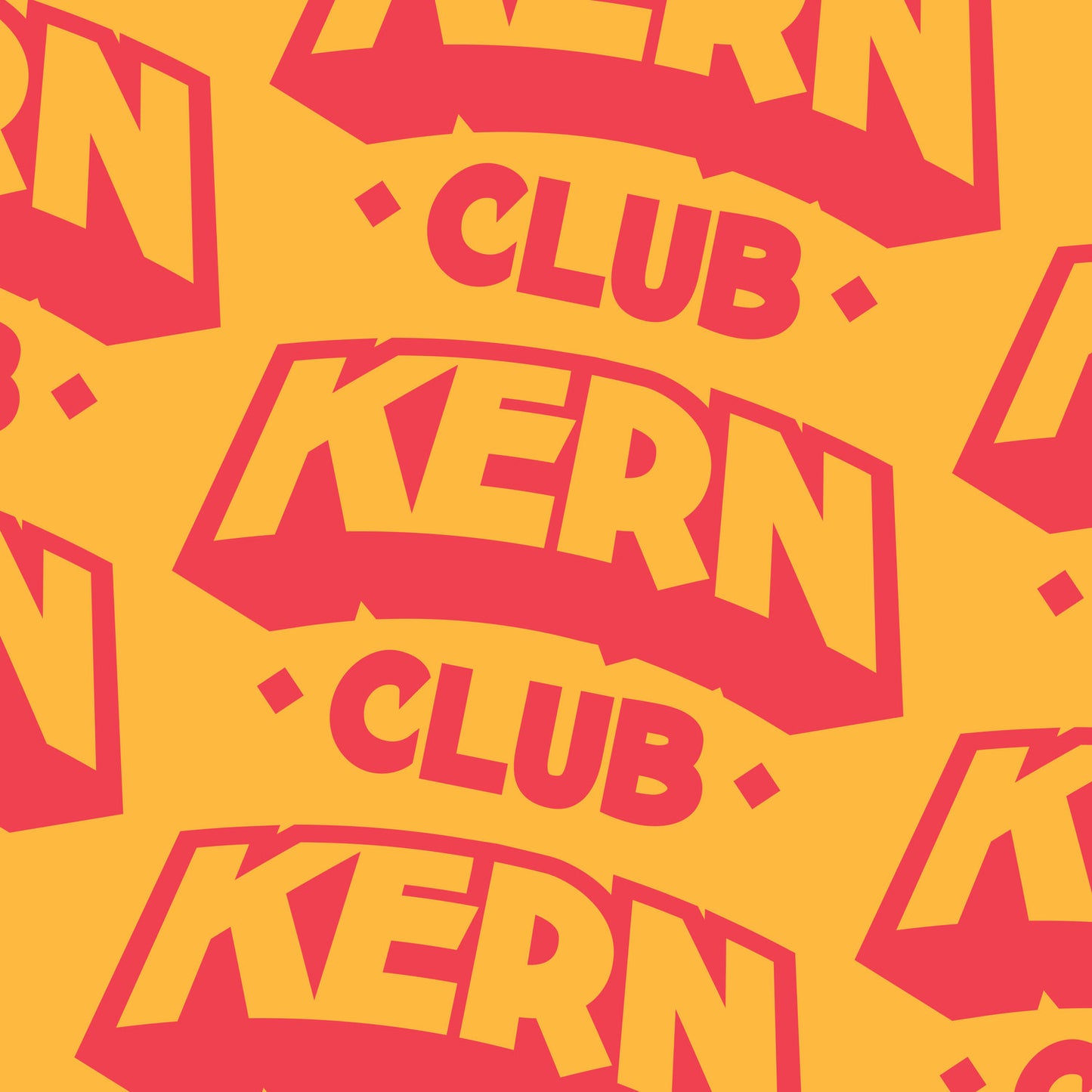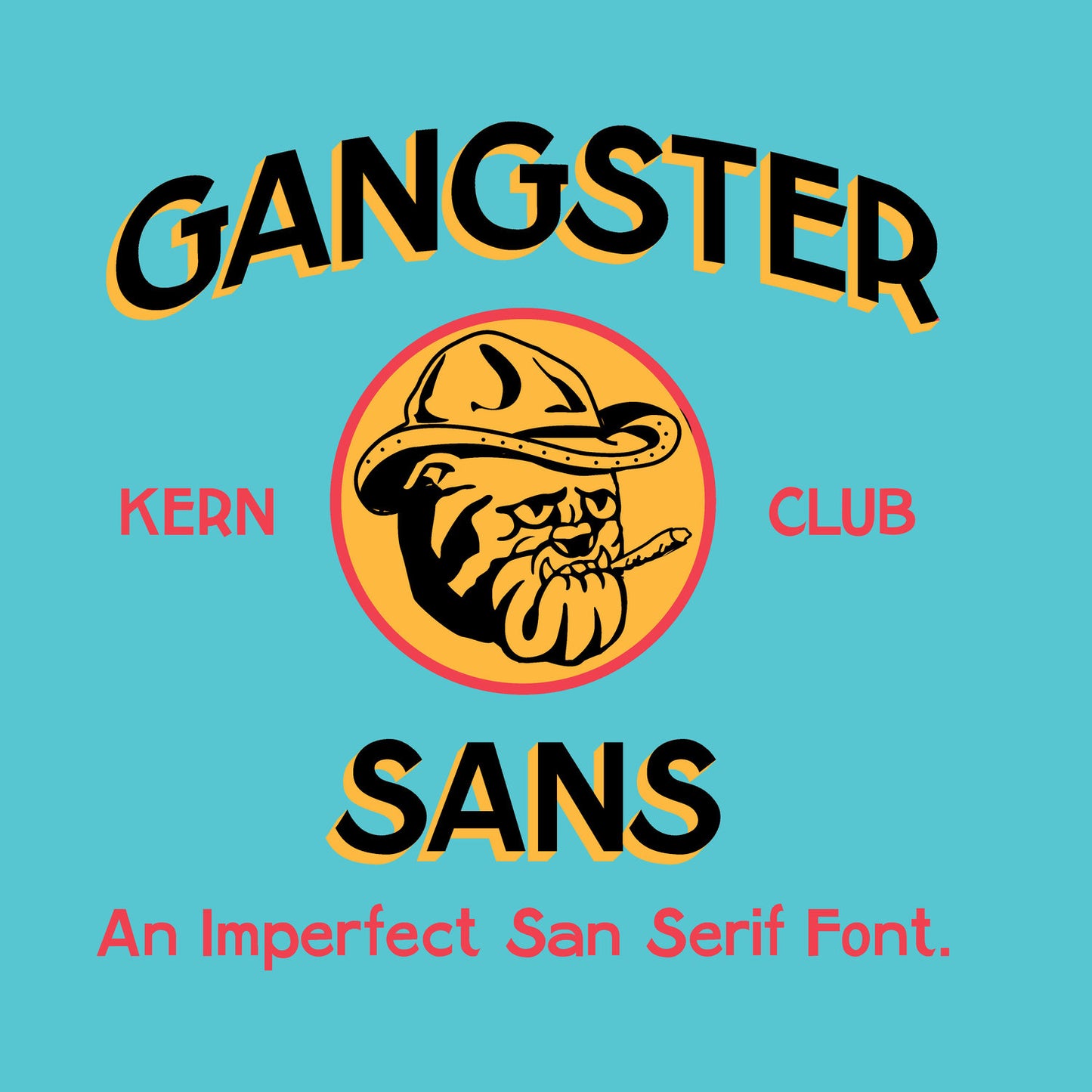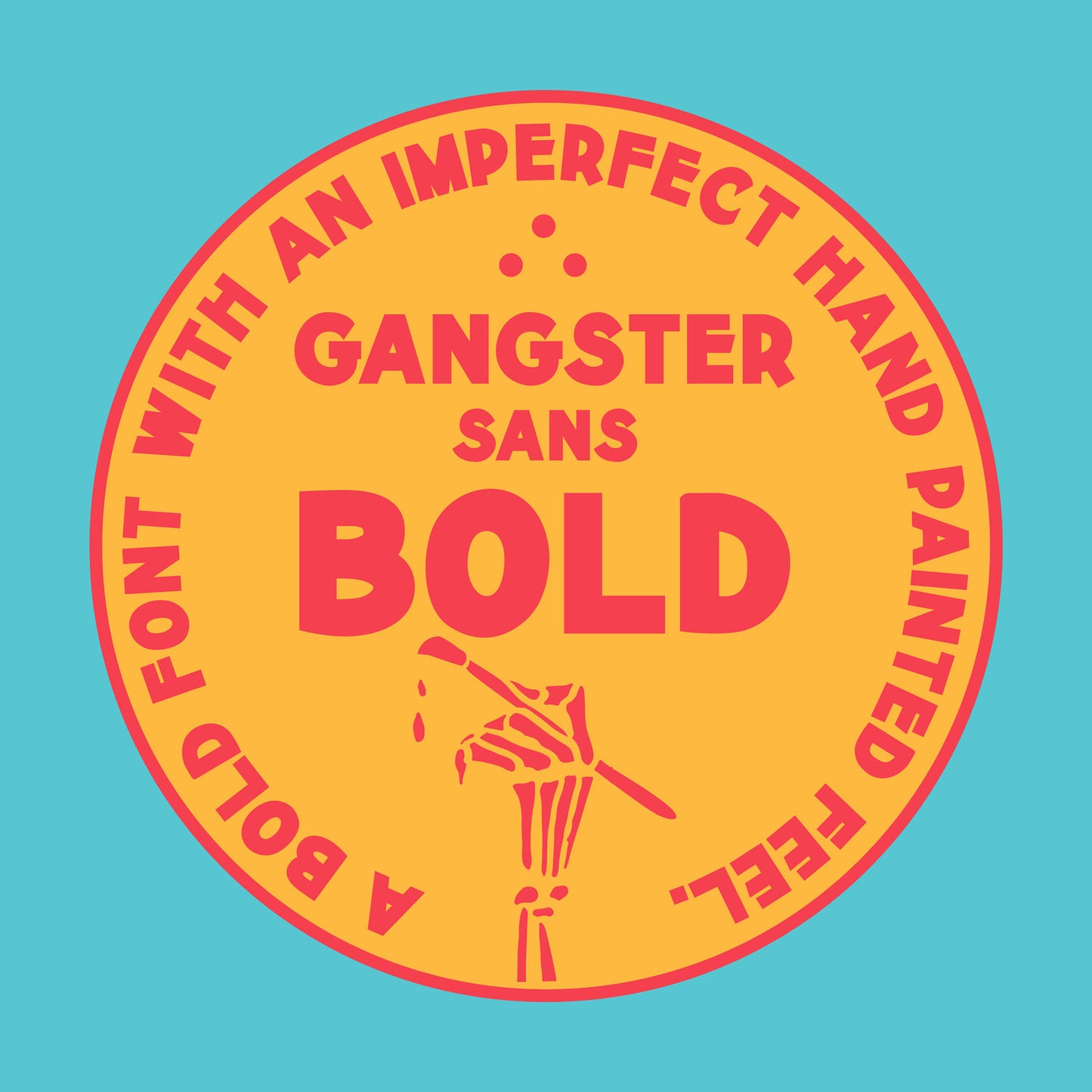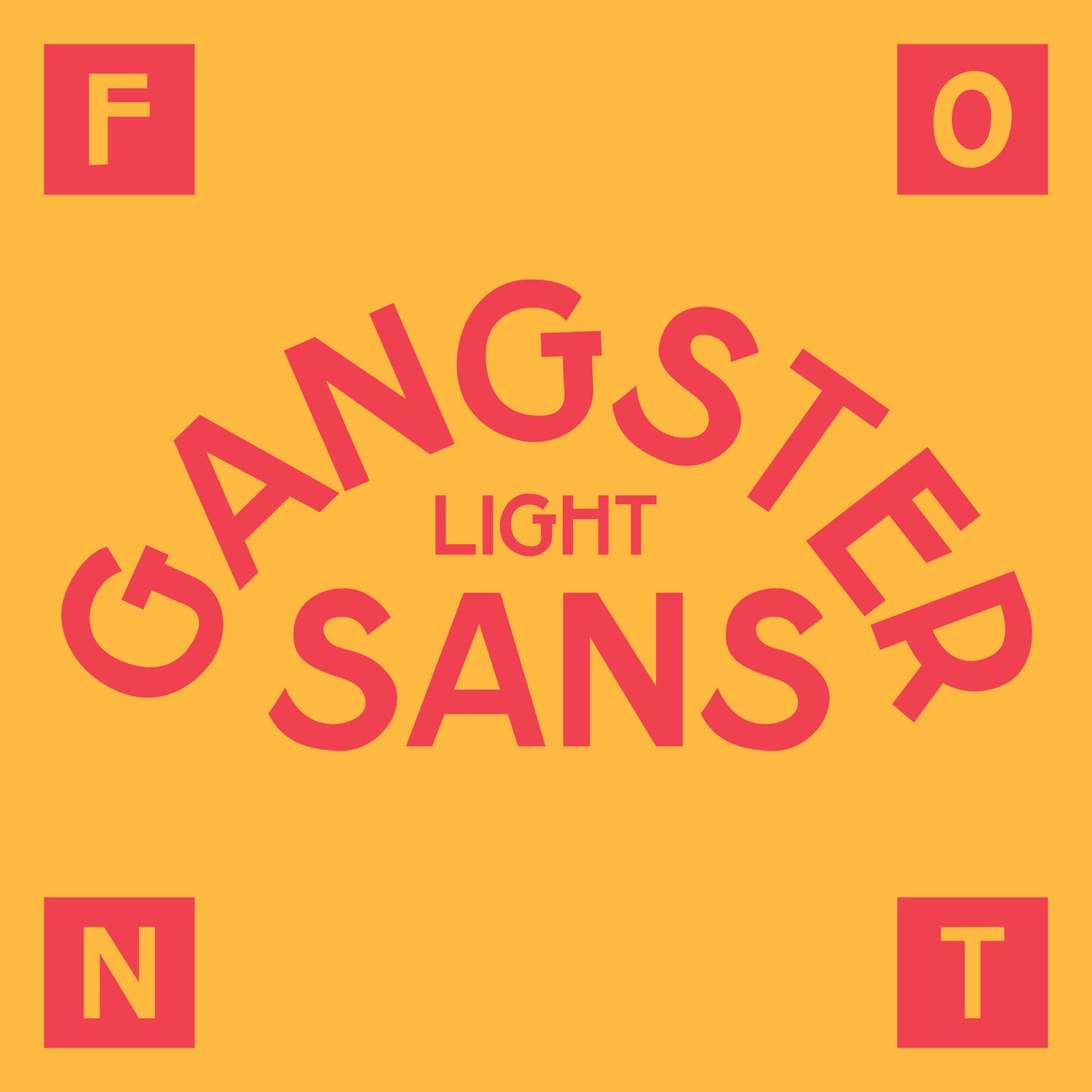
Gangster Sans Font
An imperfect san serif font. It has the perfect subtle sign painter feel.
Includes 2 weights - Bold & Light
- Uppercase character set A-Z
- Lowercase character set A-Z
- Numerals & Simple Punctuation